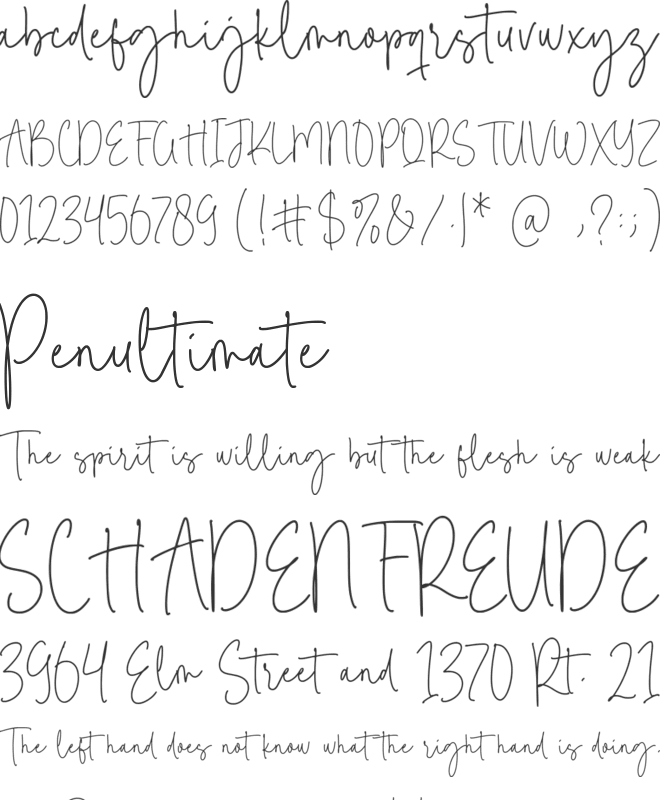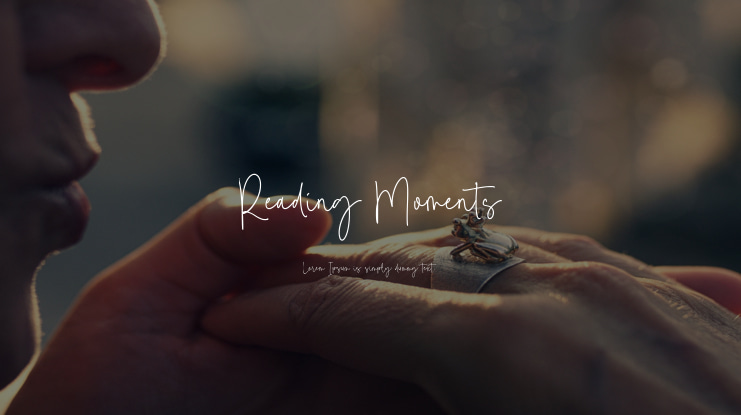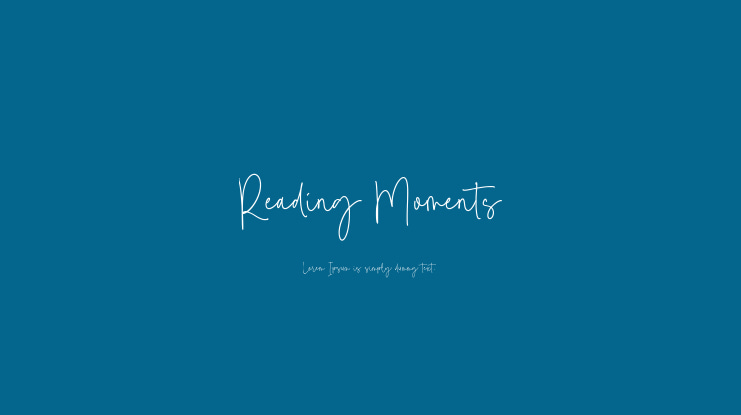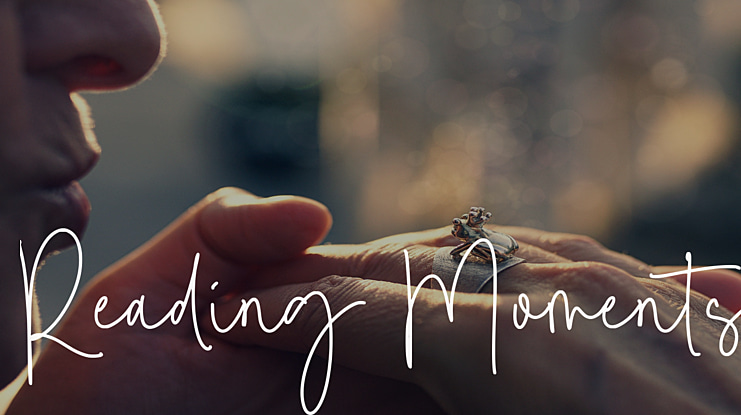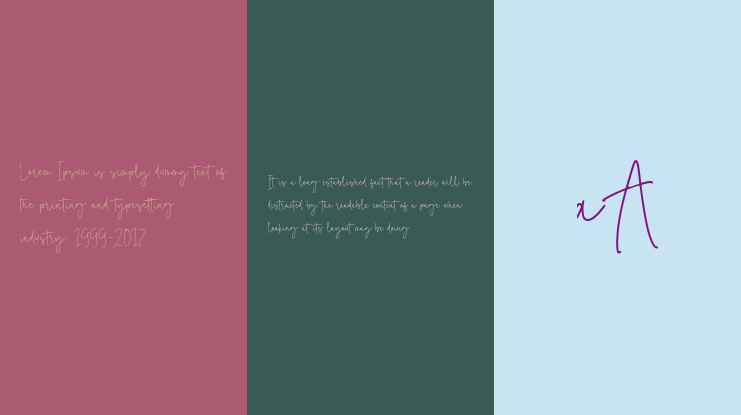
Reading Moments Font
Introducing by Balpirick Studio.
Reading Moments - a monoline handwritten that's clean, elegant and perfect for a range of design projects! With its smooth, effortless lines and understated sophistication, this font is the perfect choice for those who want a modern look that's still timeless in its appeal.
Crafted with precision and care, this font is incredibly versatile and can be used for a range of design projects, including logos, branding, invitations, packaging, and more. With its simple yet refined aesthetic, it's sure to make a lasting impression on anyone who sees it.
- also multilingual support